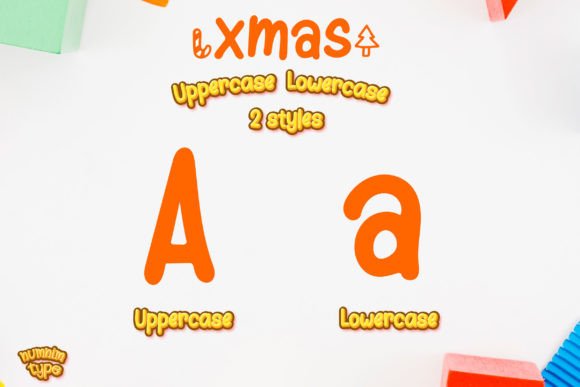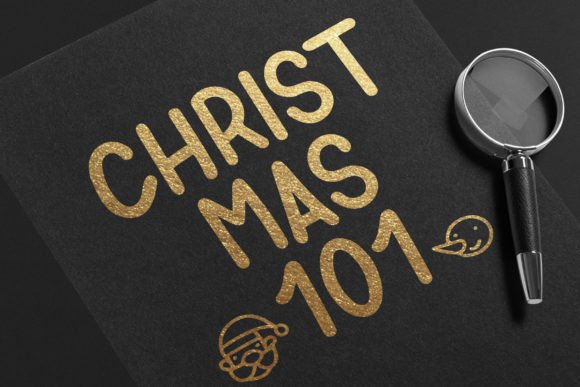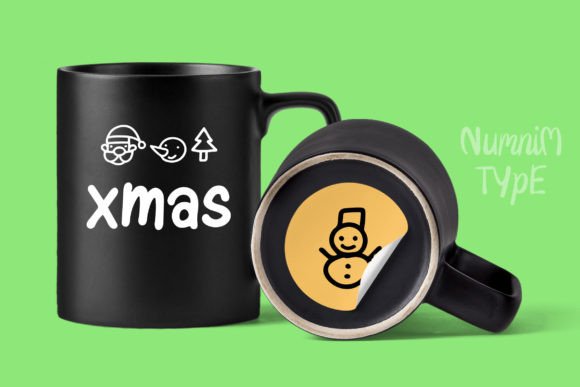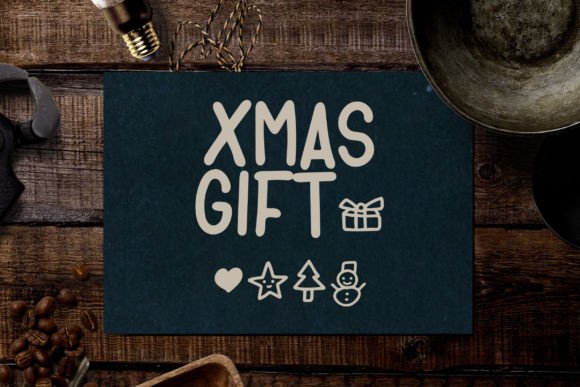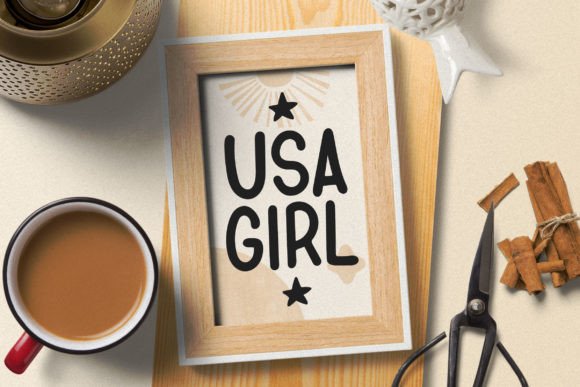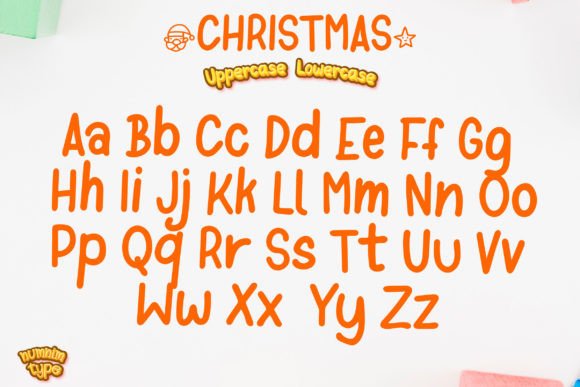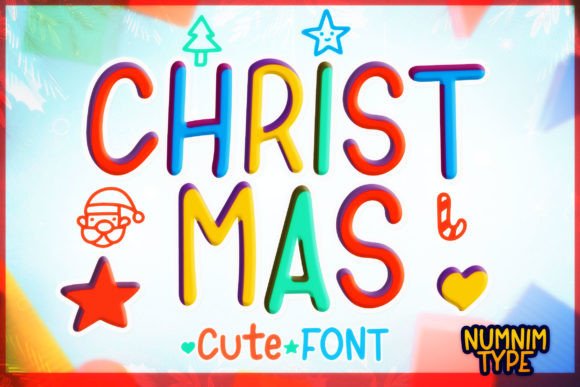
Christmas Font: Add a Touch of Holiday Cheer to Your Designs
Are you looking for a festive and fun font to add to your holiday designs? Look no further than Christmas Font, a cute and uniquely crafted handwritten font that’s perfect for creating merry and bright projects. In this article, we’ll dive into the features and benefits of Christmas Font, and explore how you can use it to make your designs shine.
What is Christmas Font?
Christmas Font is a specially designed handwritten font that’s bursting with holiday cheer. Its fun and playful characters make it the perfect choice for a wide range of design projects, from stickers and mugs to t-shirts, ornaments, and Christmas event cards. With its unique and quirky style, Christmas Font is sure to add a touch of personality to your designs.
Key Features of Christmas Font
- PUA Encoded: Christmas Font is PUA (Private Use Area) encoded, which means you can access all glyphs and swashes with ease. This makes it simple to use and customize the font to suit your design needs.
- Handwritten Style: Christmas Font features a charming handwritten style that’s perfect for creating friendly and approachable designs.
- Fun and Playful Characters: The font includes a range of fun and playful characters, from festive symbols to swashes and glyphs.
Uses for Christmas Font
Christmas Font is a versatile font that can be used for a wide range of design projects, including:
- Stickers: Add a touch of holiday cheer to your stickers with Christmas Font.
- Mugs: Create festive mugs with Christmas Font that’s sure to put a smile on anyone’s face.
- T-Shirts: Design fun and playful t-shirts with Christmas Font that’s perfect for the holiday season.
- Ornaments: Add a personal touch to your ornaments with Christmas Font.
- Christmas Event Cards: Create beautiful and festive Christmas event cards with Christmas Font.
Benefits of Using Christmas Font
There are many benefits to using Christmas Font in your designs, including:
- Unique and Quirky Style: Christmas Font features a unique and quirky style that’s sure to make your designs stand out.
- Ease of Use: The font is PUA encoded, making it easy to access all glyphs and swashes.
- Festive and Fun: Christmas Font is the perfect choice for creating festive and fun designs that capture the spirit of the holiday season.
Tips for Using Christmas Font
Here are a few tips for using Christmas Font in your designs:
- Experiment with Different Sizes: Try out different font sizes to see how Christmas Font looks in different contexts.
- Combine with Other Fonts: Combine Christmas Font with other fonts to create a unique and eye-catching design.
- Use with Festive Colors: Use Christmas Font with festive colors like red, green, and gold to create a holiday-themed design.
Christmas Font is a fun and festive font that’s perfect for adding a touch of holiday cheer to your designs. With its unique and quirky style, ease of use, and festive and fun characters, Christmas Font is the perfect choice for designers and crafters looking to create merry and bright projects. Whether you’re designing stickers, mugs, t-shirts, ornaments, or Christmas event cards, Christmas Font is sure to make your designs shine.